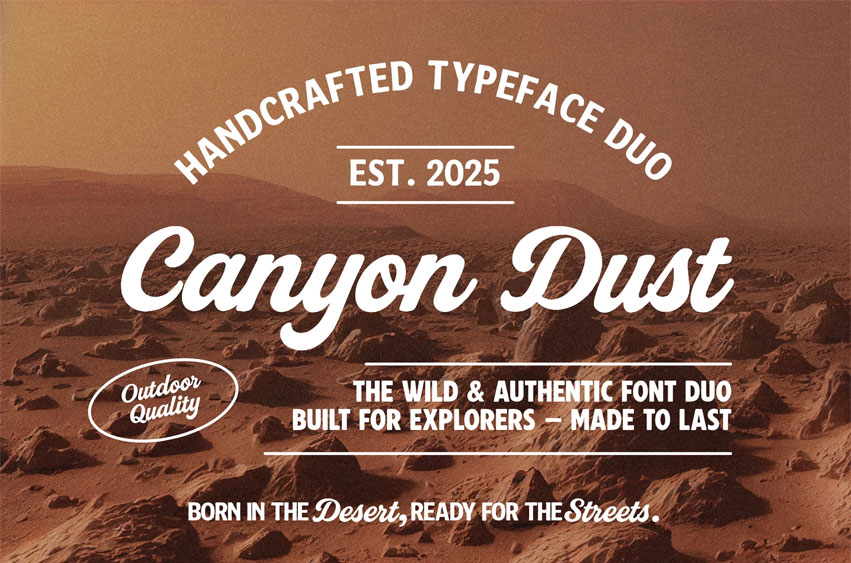
Canyon Dust Font
Canyon Dust Font is a handcrafted font duo that pairs a bold vintage sans with a smooth retro script. Inspired by desert signage and adventure spirit, this typeface is perfect for branding, packaging, and editorial projects that need an authentic and timeless look.
• Logos & branding
• Vintage posters & signage
• Product packaging & labels
• Lifestyle, travel, and coffee shop designs
• Bold headlines with script accents
Bring handcrafted authenticity to your next project with Canyon Dust – built to last and made for explorers.